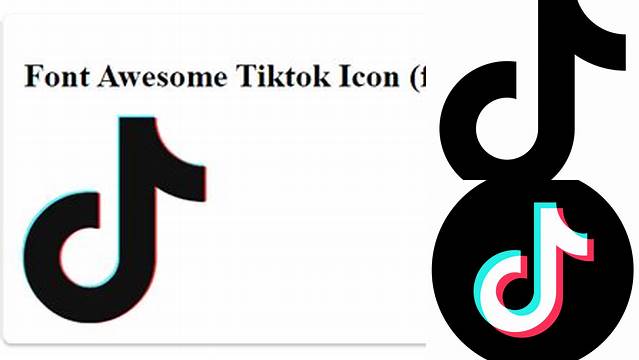
TikTok Icons: SVG, Font Awesome & Creative Design Tips
Hey everyone! 👋 Ever wanted to jazz up your designs with those iconic TikTok logos? You know, the ones that instantly scream, “I’m on the pulse of the internet!” Well, you’re in the right place. Today, we’re diving deep into the world of TikTok icons, specifically how to use them with SVG (Scalable Vector Graphics) and Font Awesome. Plus, we'll sprinkle in some creative design tips to make your projects pop! Let’s get started, shall we?
1. What's the Buzz? Understanding TikTok Icons and Their Importance
So, what’s the big deal with TikTok icons anyway? Think about it: They're instantly recognizable! They're a visual shorthand for a global phenomenon. In a world of visual overload, using the right TikTok icons can be a game-changer for your branding and design. They speak volumes without you having to utter a single word. Whether you're building a website, creating social media graphics, or developing an app, these little symbols can significantly enhance your user experience and grab attention.
Why is it so crucial to use these icons correctly? First off, they’re a nod to the platform itself, instantly connecting your project with the massive TikTok community. Second, they offer a clean, professional look, allowing you to integrate social media links and TikTok-related content seamlessly. Third, using high-quality TikTok icons shows that you pay attention to detail. It tells your audience that you care about the overall aesthetic. Now, using the wrong icon or a blurry one can have the opposite effect. It can make your project look unprofessional, out-of-date, or even a bit shady. Nobody wants that! So, let's make sure we get it right, yeah?
And one more thing: keeping up with the latest trends in design is also crucial. TikTok is constantly evolving, so why not your design? Keeping your icons crisp, clean, and relevant will help ensure your designs are always up-to-date.
2. SVG vs. Font Awesome: Choosing the Right TikTok Icon Format
Okay, guys, let's break down the options. When you're choosing how to incorporate those awesome TikTok icons, you've basically got two main contenders: SVG and Font Awesome. Both have their strengths, so which one is the best for your project? Let's find out!
First up, SVG (Scalable Vector Graphics). Think of SVG files as digital blueprints. They're based on mathematical formulas, meaning they can scale up or down to any size without losing quality. No pixelation, no fuzziness – just pure, crisp perfection. This is fantastic for responsive designs where the icon needs to adapt to different screen sizes. You can also easily customize the colors and styles of SVG icons using CSS, giving you total design flexibility. The downside? You might need to download each TikTok icon individually and potentially write a bit more code for implementation.
Then there’s Font Awesome. This is basically a massive library of icons, including TikTok icons, packaged as fonts. It's super convenient! You simply include the Font Awesome library in your project, and you can call upon any icon you need using a simple HTML class. It's quick, easy, and ideal if you need a variety of icons. However, as these are fonts, you might have less control over the individual styling of each icon. Customization can be a bit trickier compared to SVG. Also, relying on an external font library can sometimes impact your website's loading speed. So, you'll need to weigh the pros and cons based on your specific project requirements. Ultimately, both SVG and Font Awesome can be great choices. It just depends on what works best for you! Now, which one do you prefer?
3. Finding the Perfect TikTok SVG Icons for Your Projects
- Design Communities: Platforms like Dribbble and Behance are treasure troves of inspiration and design assets. You can often find talented designers who offer free or paid TikTok SVG icons. This is a great way to support creatives and discover unique icon styles.
- Official Sources: Sometimes, you can find official TikTok icon assets on the platform's developer resources or brand guidelines. However, these might not always be available, and it's essential to ensure you are using the most up-to-date versions.
When you're browsing these resources, keep an eye out for a few things: icon style (do you need a simple outline, a filled icon, or a more stylized version?), file format (make sure it's SVG!), and licensing (is it free for commercial use? Do you need to give credit?). Finding the right icon is all about finding the perfect fit for your project! Remember, guys, a well-chosen icon can make all the difference.
4. Downloading and Implementing TikTok SVG Icons in Your Website
So, you've found the TikTok SVG icon of your dreams. Now what? Let's get it onto your website! Here's a step-by-step guide to downloading and implementing those icons:
- Open Your HTML File: Open the HTML file of the webpage where you want to display the icon. You'll need to add some code to embed the SVG.